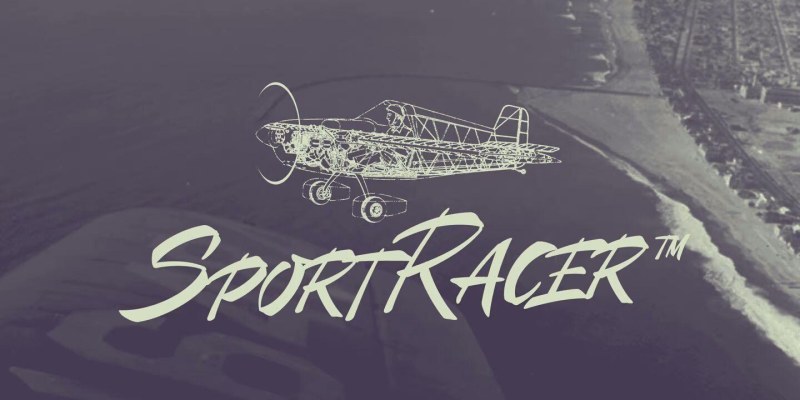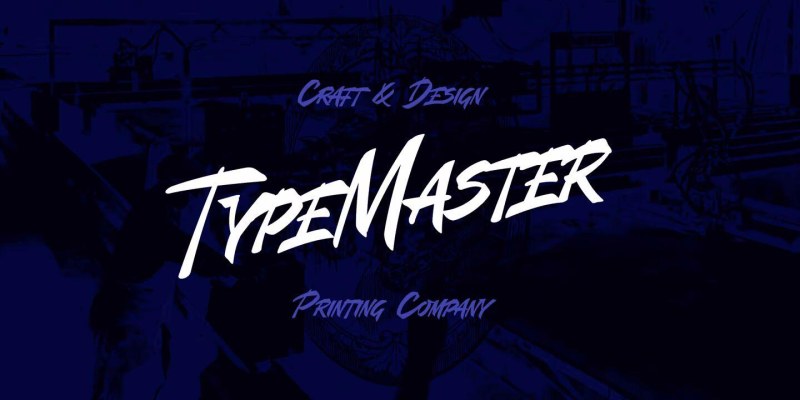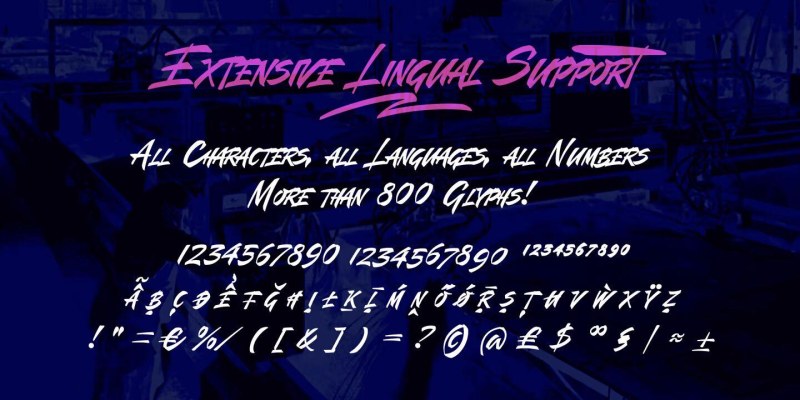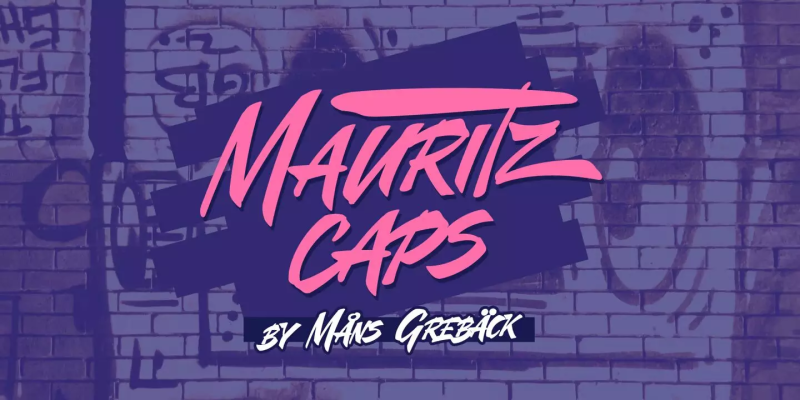
Mauritz Caps Font Family
Mauritz Caps is a brush script typeface. This lively uppercase graffiti-style lettering font was drawn and created by Mans Greback in 2021 to be the ultimate set of wild…
Mauritz Caps is a brush script typeface. This lively uppercase graffiti-style lettering font was drawn and created by Mans Greback in 2021 to be the ultimate set of wild-style handwriting for logotypes and branding. This calligraphy family consists of five high-quality fonts in various weights: Mauritz Caps Thin, Light, Regular, and Bold.
The font is built with advanced OpenType functionality. It guarantees top-notch quality, containing stylistic and contextual alternates, ligatures, and more features to give you complete control and customizability. It has extensive lingual support, covering all Latin-based languages from North Europe to South Africa and from America to Southeast Asia. It contains all the characters and symbols you’ll ever need, including punctuation and numbers.